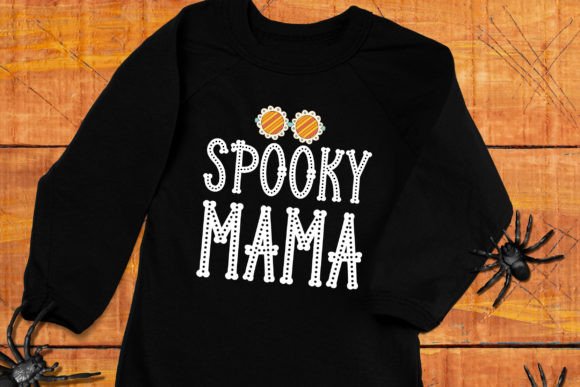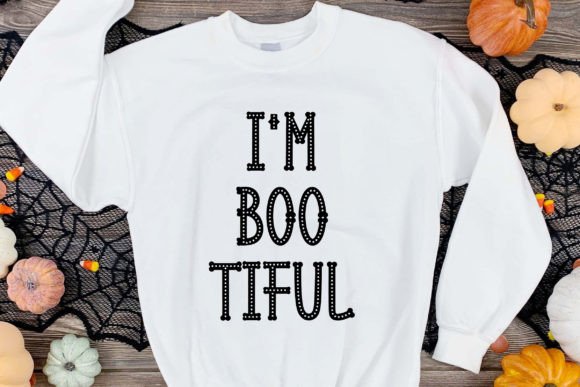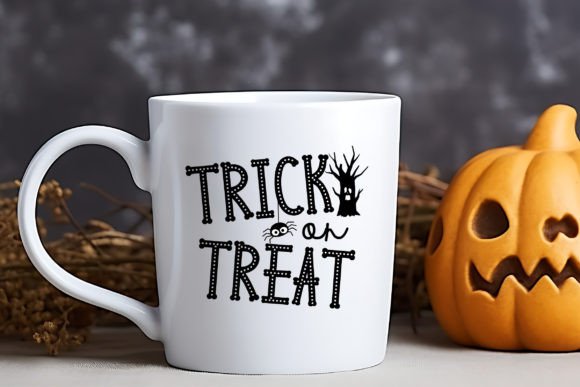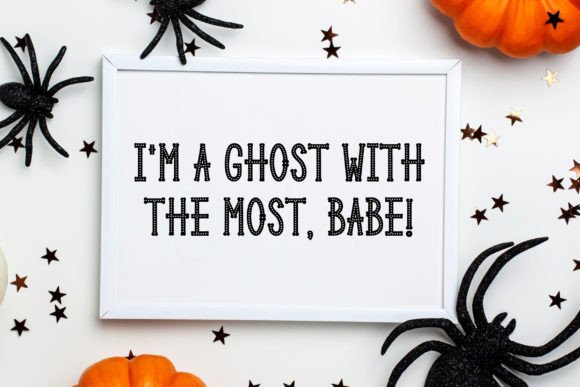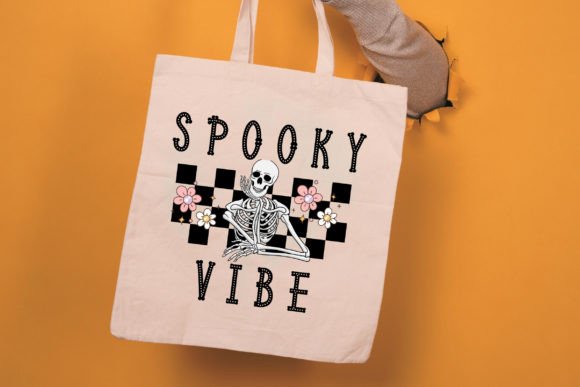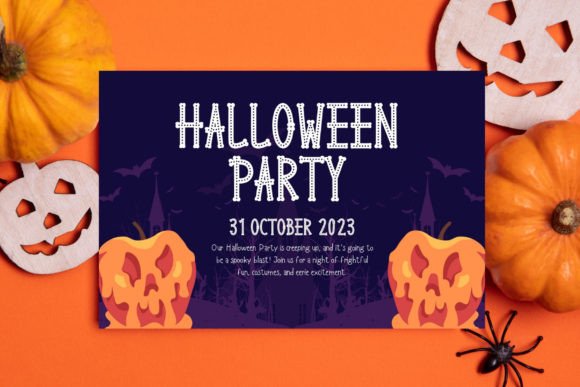
Spooky Fun with Fonts: Introducing Dotted Bone Font
As a designer, have you ever stumbled upon a project that requires the perfect balance of spooky and fun? Perhaps it’s a Halloween-themed poster or a custom T-shirt for a little monster’s birthday party. Whatever the case, you’re on the hunt for a font that captures the essence of the season without being too scary for the little ones. This is where the Dotted Bone Font comes in – a playful and whimsical display font that combines skeleton shapes with a classic dotted font style.
Designed specifically for children’s Halloween events, the Dotted Bone Font is the perfect choice for adding a touch of spooky fun to your projects. Whether you’re a seasoned designer or a DIY enthusiast, this font is sure to bring a smile to your face and a twinkle to your creations. With its versatility and charm, the Dotted Bone Font is an invaluable addition to any designer’s toolkit, especially during the Halloween season.
Dotted Bone Font Key Features
- Character Set: The font includes a wide range of characters, including uppercase and lowercase letters, numbers, punctuation marks, and special characters, making it suitable for various applications.
- Unique Characteristics: The Dotted Bone Font features a unique, hand-drawn design with intricate details and a distinctive dotted pattern, adding a touch of elegance and sophistication to any text-based project.
- Style Options: The font includes multiple style options, including Regular, Italic, Bold, and Bold Italic, allowing designers to choose the perfect style to match their project’s tone and atmosphere.
Dotted Bone Font Review
Overall, I think the Dotted Bone Font has some great qualities that make it stand out, but it also has some limitations that might make it less suitable for certain projects.
- ✨ Unique and quirky design that can add a touch of personality to a project.
- ✨ Clear and readable, even at smaller font sizes.
- ✨ A good range of weights and styles to choose from.
- ⚠️ May not be suitable for projects where a more formal or traditional font is needed.
- ⚠️ Can be a bit difficult to read in certain contexts, such as in large blocks of text.
- ⚠️ Some of the characters may not render correctly in certain operating systems or browsers.
Overall, I think the Dotted Bone Font is a great choice for projects where you want to add a bit of whimsy and personality, but it may not be the best choice for more formal or traditional projects.
For best results, use the Dotted Bone Font in bold or italic styles to emphasize the text.
Experiment with different font sizes and colors to create visually appealing designs.
Use the Dotted Bone Font in conjunction with other creative elements, such as illustrations or graphics, to create unique and eye-catching designs.
The Dotted Bone Font is ideal for:
1. Whimsical and playful designs.
2. Creative and artistic projects.
3. Children’s books and educational materials.
4. Fashion and lifestyle branding.